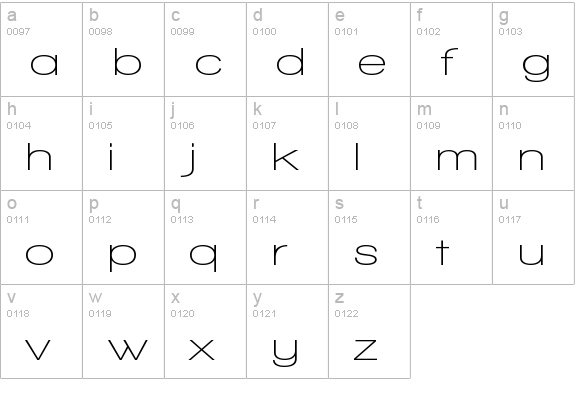
Walkway Expand SemiBold is a sub-bold, structured variant in the Walkway typeface family \xE2\x80\x94 well suited to sub-headlines and emphasised passages.
Walkway Expand SemiBold is a captivating and modern font that effortlessly combines sophistication with a touch of playfulness. With its bold and expanded letterforms, this typeface is perfect for making a statement and commanding attention in any design project. The strong and confident presence of Walkway Expand SemiBold makes it an ideal choice for headlines, logos, posters, and other bold graphic designs. Its distinct letter shapes and generous spacing create a sense of balance and harmony, while the semi-bold weight adds a subtle touch of elegance. Whether you're designing a cutting-edge website, a sleek magazine layout, or a striking advertising campaign, Walkway Expand SemiBold is sure to enhance your project with its unique aesthetic. Its versatility allows it to adapt to various design styles, from minimalist and contemporary to edgy and urban. One of the best aspects of Walkway Expand SemiBold is that it is freely available to download at FontsMarket.com. This means that you can easily access and use this exceptional font without any hassle or cost. Its availability for free makes it a valuable asset for designers and creatives looking to elevate their work without breaking the bank. So, why settle for ordinary when you can make a statement with Walkway Expand SemiBold? Download this remarkable font today and unleash your creativity with its bold and captivating presence.